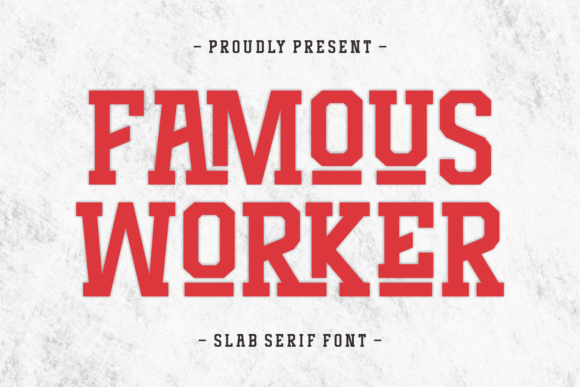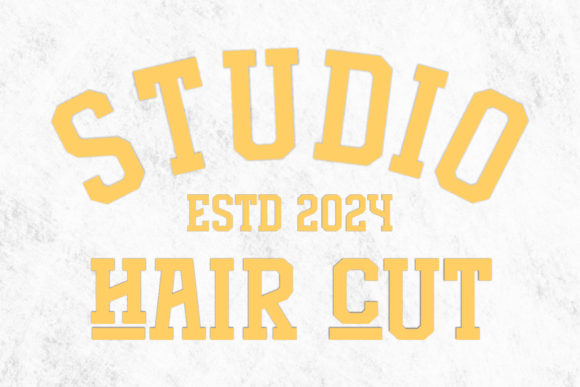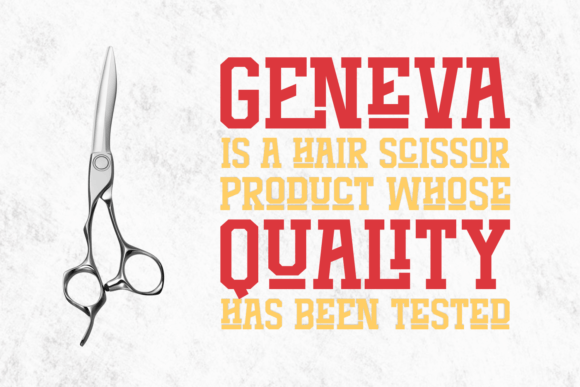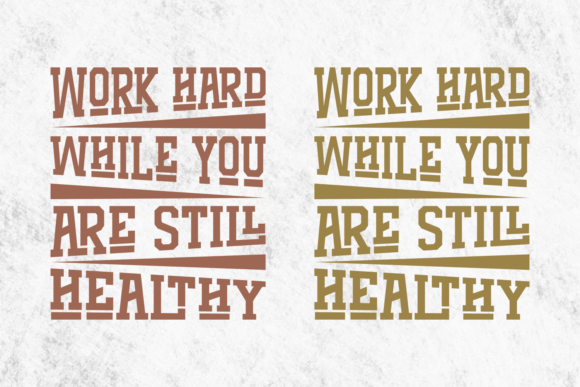
Famous Worker Font
About the Famous Worker Font
From logos to headlines, the Famous Worker Font is the perfect choice for making a lasting impression. Enhance the visual appeal of your designs and magnify your brand’s impact using our diverse selection of fonts. Venture into the world of Slab Serif and discover fonts perfect for giving your designs a bookish authenticity or a powerful apparel design.
Famous Worker Font is ideally suited for headlines, short impactful statements, and branding applications where a bold, authoritative presence is desired. Its slab serif design lends itself well to posters, packaging for premium products, and even select apparel designs. However, its strong character makes it less suitable for body text or long paragraphs, and it would be inappropriate for user interfaces requiring high readability.
The font possesses a powerful, dependable personality; think classic Americana with a modern twist. Its inherent boldness is best balanced by pairing it with a clean sans-serif like Helvetica Neue for a contemporary contrast, or a more traditional serif like Garamond for a sophisticated, classic feel. Pairing it with a delicate script font should be avoided as it might create visual tension and lack cohesion.
Consider Famous Worker Font for brands conveying strength, reliability, and heritage. Think artisanal goods, high-end menswear, or heritage brands looking to project a timeless yet current image.
Famous Worker Font Usage Examples
Famous Worker Font Example